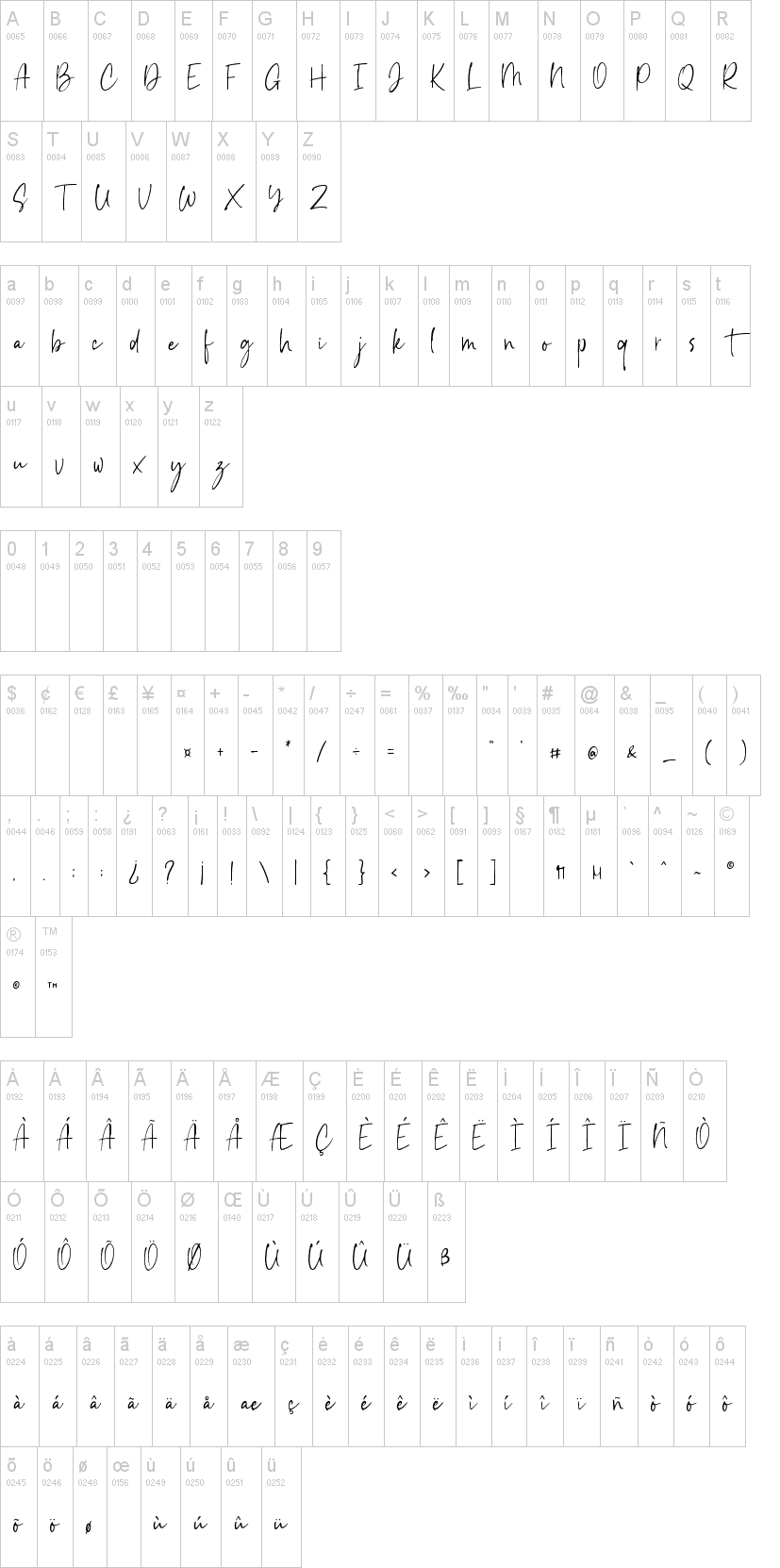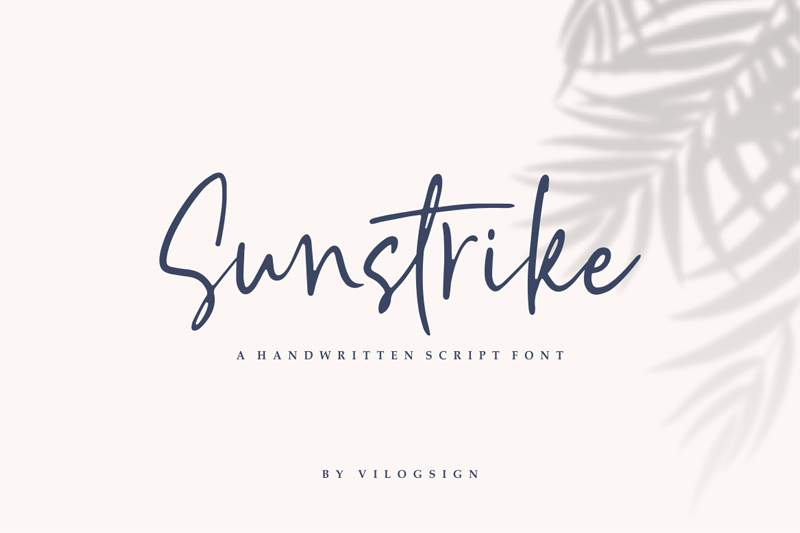
Introducing the new "Sunstrike" a beautyful handwritten script font. A beautiful vintage script font with alternative and 70 ligatures to complete your needs.
With built in Opentype features, this script comes to life as if you are writing it yourself.
This font is very good with additional alternatives like multilingual support.
I make this font with lovely so make this font look natural, vintage but classic and elegant, very suitable to make a branding, magazine, fashion, quotes, logo, packaging, and other.